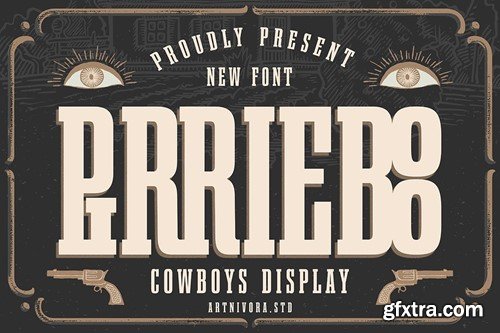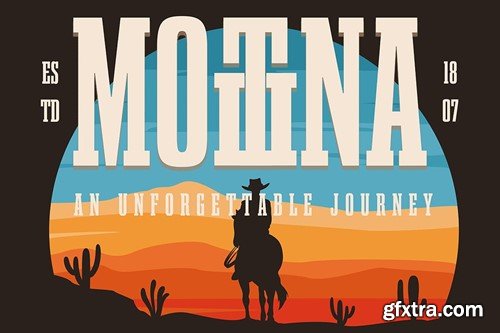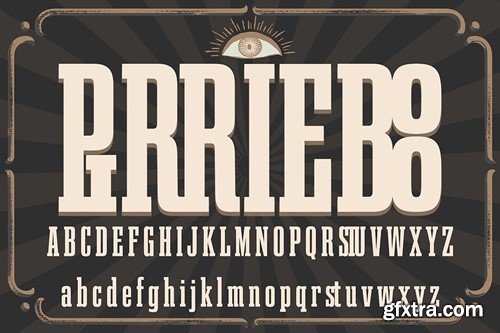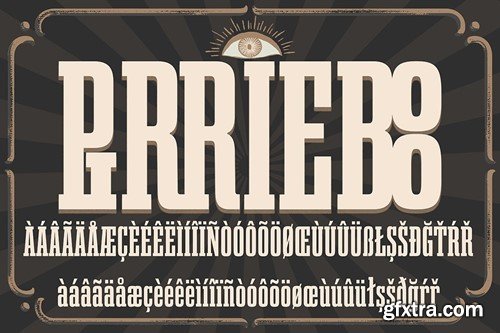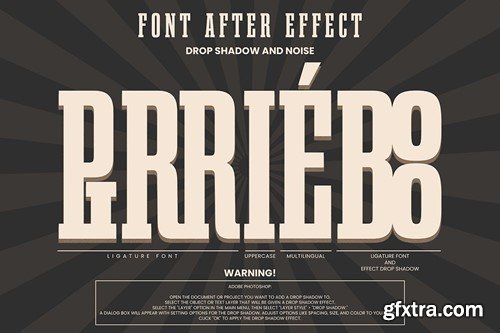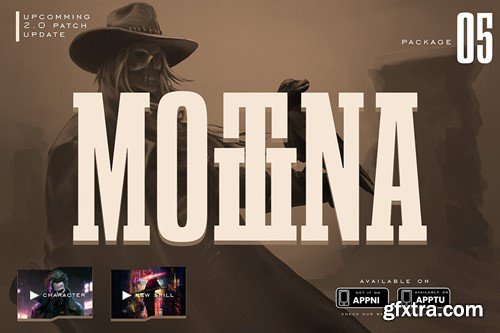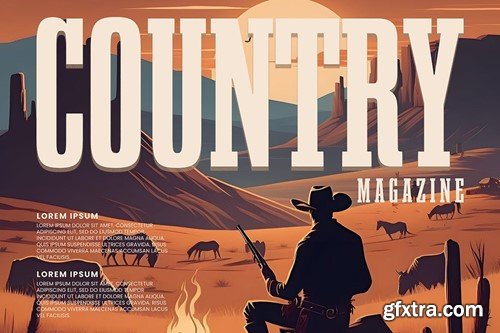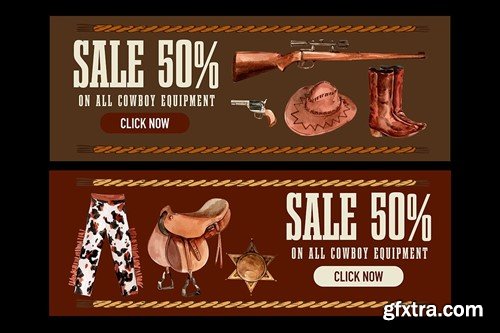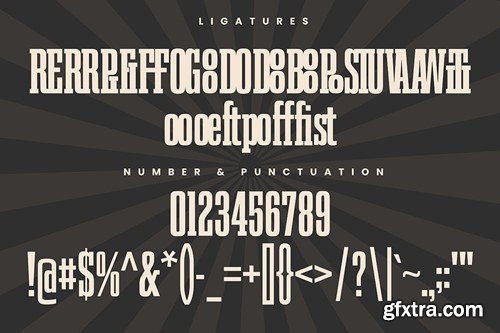
Pirrieboo - Serif Font
Introducing Pirrieboo, a simple and serif font. So perfect for you who needs a typeface for logo designs, magazine, social media, brochure, and many more.
Features
• Uppercase
• Lowercase
• Punctuation
• Numerals
• Multilingual Support